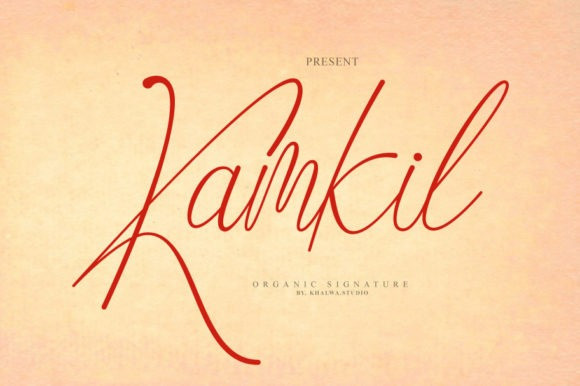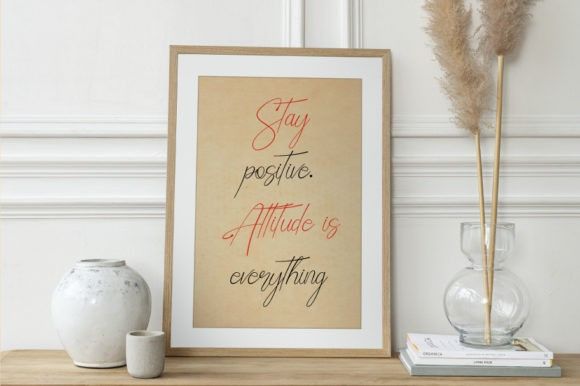
Kamkil Font
Kamkil – If you are looking for a script typeface, then you are in the right place! With impressive features, very much like natural handwriting, this font will make your work more perfect. Add it to your collection of fonts!
This font is perfect for branding projects, logos, wedding designs, social media posts, advertisements, product packaging, product designs, label, photography, watermark, invitation, stationery, and other projects that need handwriting taste.